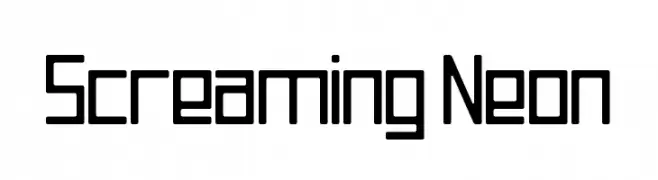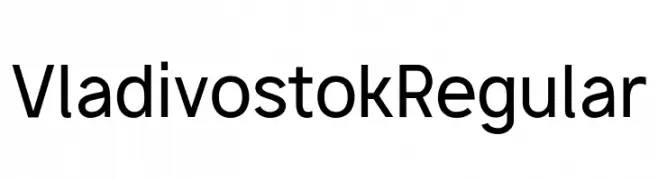
A decorative font with sharp, angular lines and pointed serifs, exuding energy and movement.
A playful, informal handwritten font with irregular strokes and a casual appearance.
( Fonts by Michael Sharanda )
A bold, modern sans-serif font with excellent readability.
( Fonts by Michael Sharanda )
A clean, modern sans-serif font with balanced proportions and excellent readability.
( Fonts by Thatcher Ulrich )
A bold, italicized font with a strong and dynamic presence.
( Fonts by Thatcher Ulrich )
A modern, italic sans-serif font with clean lines and excellent readability.
( Fonts by Thatcher Ulrich )
A clean, modern sans-serif font with balanced spacing and legible characters.
( Fonts by Thatcher Ulrich )
A bold, clean sans-serif font with excellent legibility and impact.
( Fonts by Michael Moss )
A geometric, modern font with uniform line thickness and a futuristic appeal.
( Fonts by Graphicfresh )
A bold, angular font with a graffiti-inspired style.